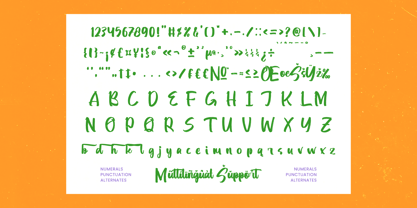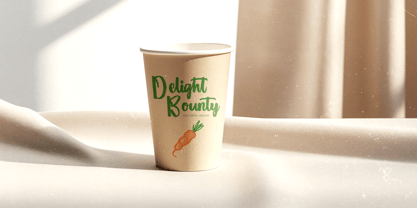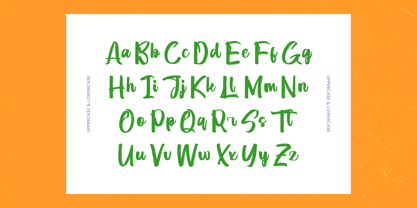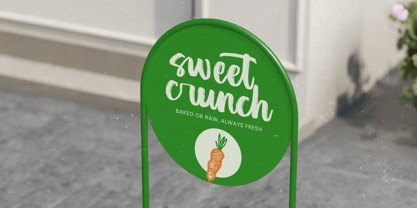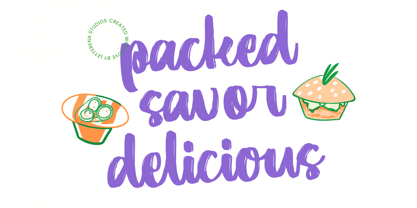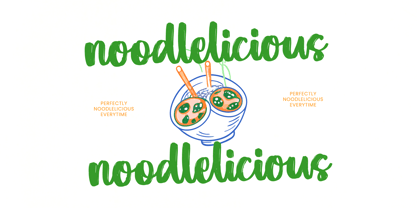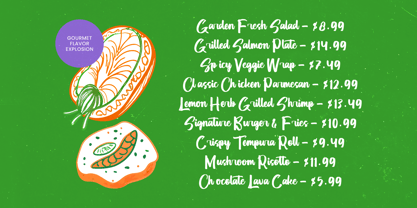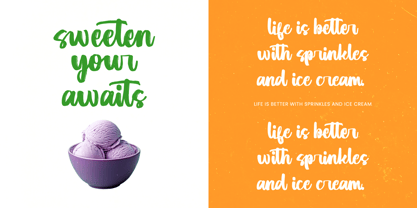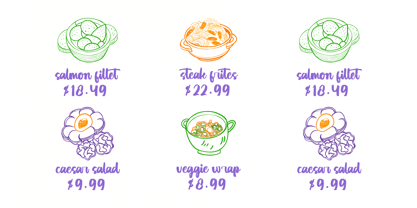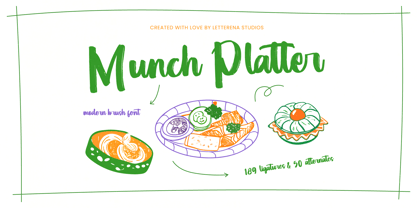
Munch Platter
by Letterena Studios
The Munch Platter Font Family was designed by Heru Utama Putra and published by Letterena Studios. Munch Platter contains 2 styles and family package options. More about this family
Munch Platter is a modern brush font designed to bring fresh, playful energy to your creative projects. Inspired by hand-painted strokes and casual lettering styles, this typeface combines bold texture with smooth flow, creating a friendly and expressive personality. Perfect for food branding, café menus, packaging, restaurant logos, social media graphics, posters, and lifestyle campaigns, Munch Platter delivers a vibrant and handcrafted aesthetic. With 189 ligatures and 50 alternates, it offers extensive typographic flexibility, allowing seamless letter connections and unique stylistic variations. Whether used for bold headlines or creative branding, Munch Platter adds warmth, charm, and a deliciously modern brush character to both print and digital designs.